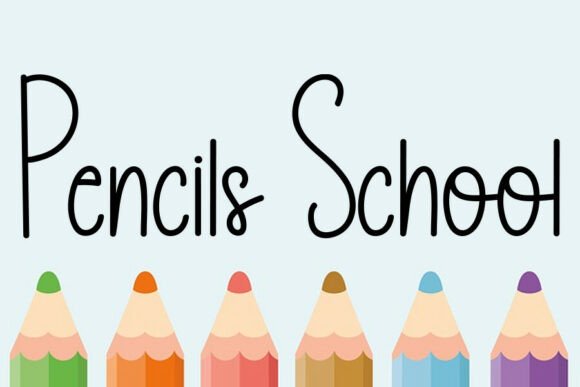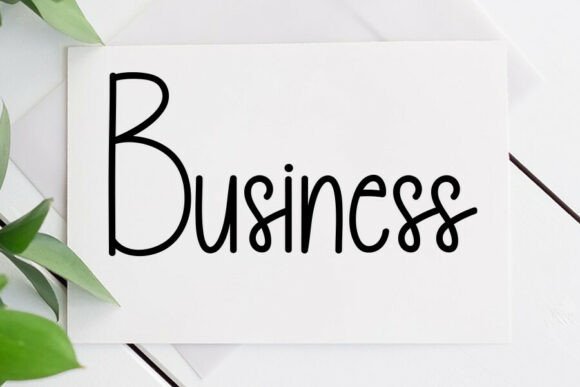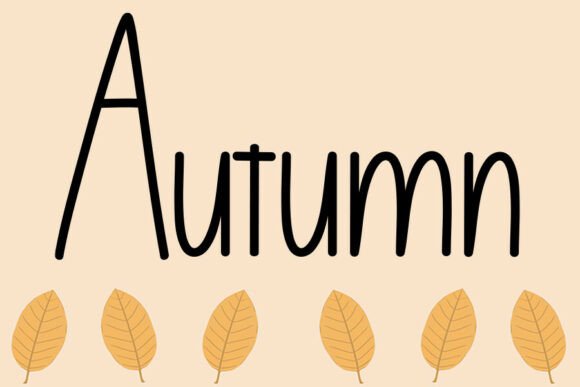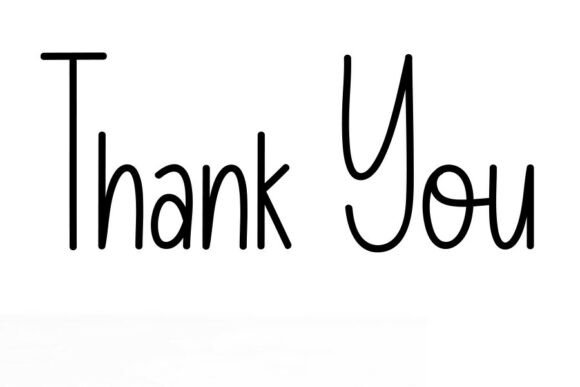
Bathroom Font: The Perfect Handwritten Font for Your Creative Projects
Are you looking for a font that can add a touch of warmth and personality to your designs? Look no further than Bathroom Font, a tall, playful handwritten font with a casual, heartfelt feel. In this article, we’ll explore the features and benefits of Bathroom Font, and how it can be used to elevate your creative projects.
What is Bathroom Font?
Bathroom Font is a unique and charming handwritten font that combines a clean, elegant style with a touch of playfulness. Its slim, elongated characters give it a distinctive look that’s perfect for a wide range of design applications. Whether you’re creating a Father’s Day card, a t-shirt design, or a poster, Bathroom Font is the ideal choice.
Key Features of Bathroom Font
- Tall and Playful: Bathroom Font features tall, slender characters that give it a playful and elegant feel.
- Handwritten Style: With its clean and fluid strokes, Bathroom Font has a warm, handwritten feel that’s perfect for personal and emotional projects.
- Casual and Heartfelt: The font’s casual, heartfelt vibe makes it ideal for designs that require a touch of personality and warmth.
- Versatile: Bathroom Font can be used for a wide range of design applications, from greeting cards and t-shirts to posters and more.
Benefits of Using Bathroom Font
So why choose Bathroom Font for your next design project? Here are just a few benefits of using this versatile and charming font:
- Adds Personality: Bathroom Font’s unique and playful style allows you to add a touch of personality to your designs.
- Emotional Connection: The font’s heartfelt and casual feel helps create an emotional connection with your audience.
- Easy to Read: Despite its playful style, Bathroom Font is easy to read and understand, making it perfect for designs that require a clear message.
- Customizable: Bathroom Font can be easily customized to fit your design needs, from adjusting the font size to adding your own colors and textures.
Design Ideas Using Bathroom Font
So what can you create with Bathroom Font? Here are a few design ideas to get you started:
- Father’s Day Cards: Create a heartfelt Father’s Day card with Bathroom Font and add a personal touch.
- T-Shirt Designs: Use Bathroom Font to create fun and playful t-shirt designs that are perfect for casual wear.
- Posters: Create eye-catching posters with Bathroom Font and add a touch of personality to your advertising campaigns.
- Greeting Cards: Use Bathroom Font to create a wide range of greeting cards, from birthday cards to get well cards.
Tips for Using Bathroom Font
To get the most out of Bathroom Font, here are a few tips to keep in mind:
- Use it Sparingly: While Bathroom Font is a beautiful font, it can be overwhelming if used excessively. Use it sparingly to add a touch of personality to your designs.
- Pair it with Other Fonts: Bathroom Font pairs well with other fonts, so feel free to experiment with different font combinations to create a unique look.
- Adjust the Font Size: Adjust the font size to fit your design needs and create a clear hierarchy of information.
Bathroom Font is a unique and charming handwritten font that’s perfect for designers and crafters looking to add a touch of warmth and personality to their designs. With its tall, playful characters and casual, heartfelt feel, Bathroom Font is ideal for a wide range of design applications. Whether you’re creating a Father’s Day card, a t-shirt design, or a poster, Bathroom Font is the perfect choice. So why not give it a try and see how it can elevate your creative projects?